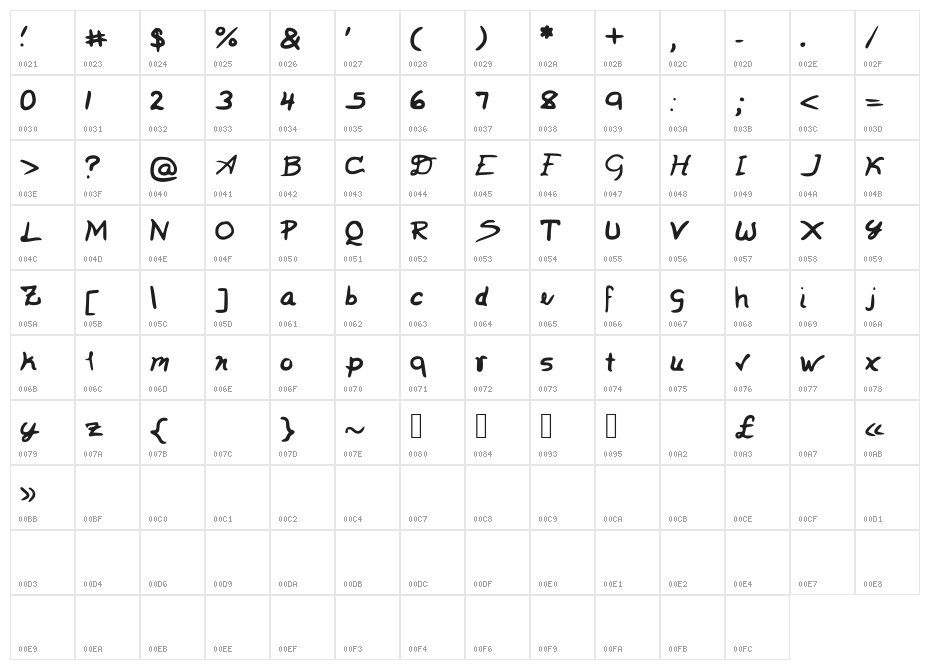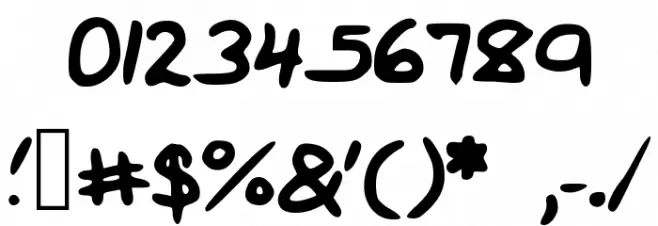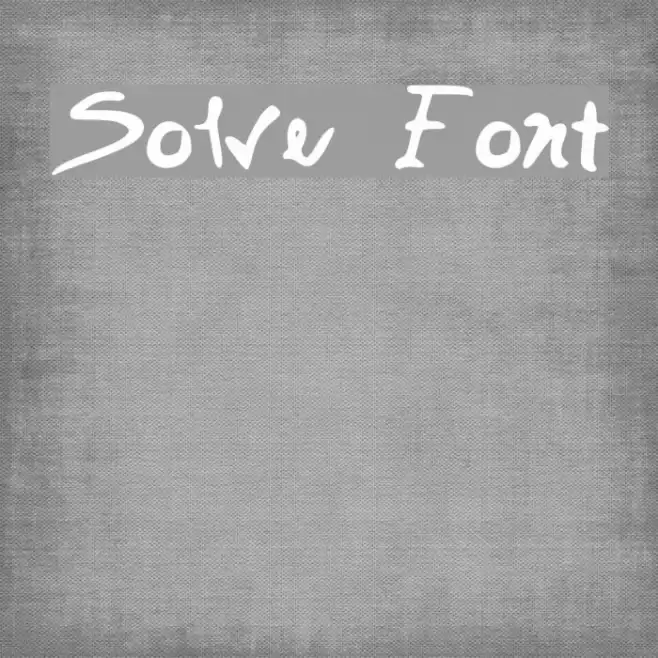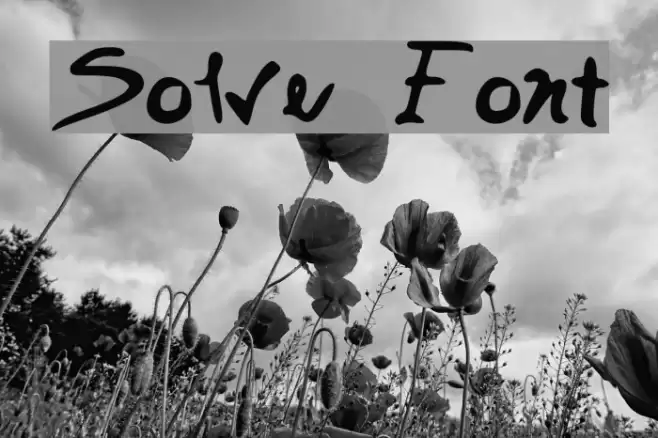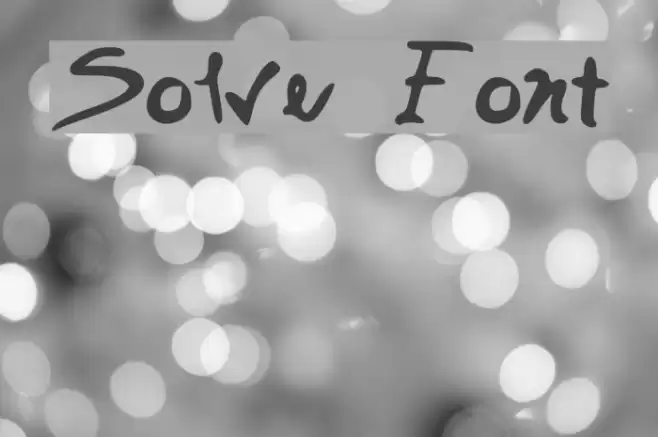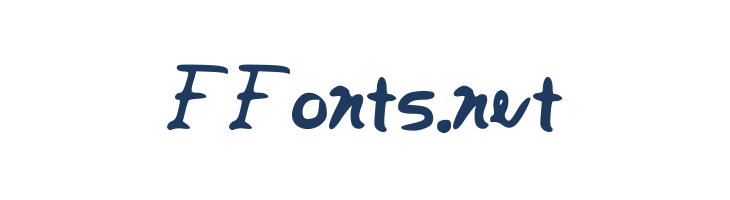
Solve Font
Solve Description
This font features a playful and dynamic script style, characterized by its fluid and informal strokes. The letters have a hand-drawn appearance, with varying thickness that adds a lively and energetic feel. The uppercase letters are bold and slightly slanted, while the lowercase letters maintain a consistent flow, enhancing readability. Numbers and special characters follow the same whimsical style, making the font suitable for creative and casual applications. The overall design exudes a sense of spontaneity and creativity, perfect for projects that aim to convey a friendly and approachable tone.
| Proposed Projects | Ideal for greeting cards, playful branding, children's books, and creative posters. |